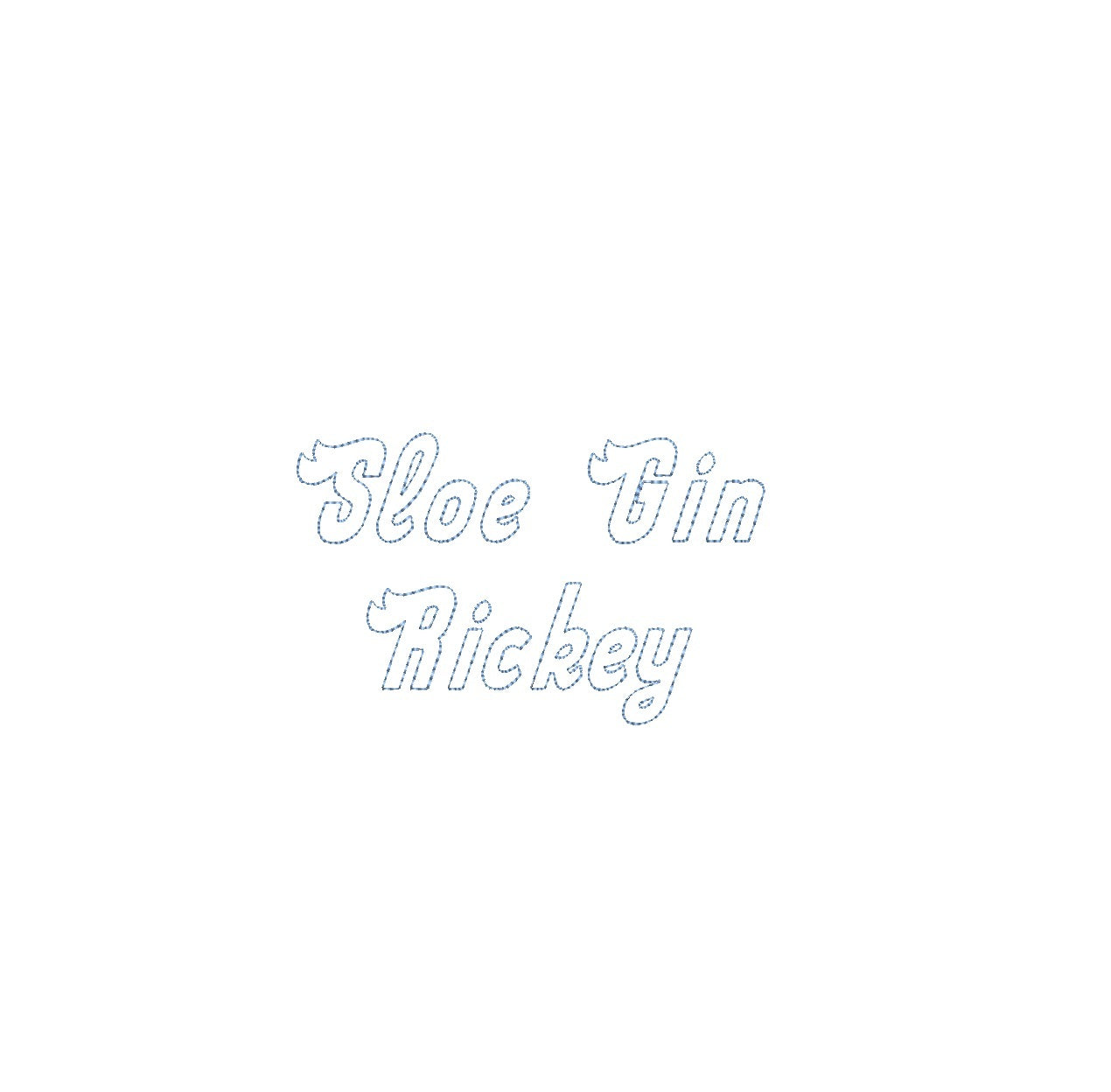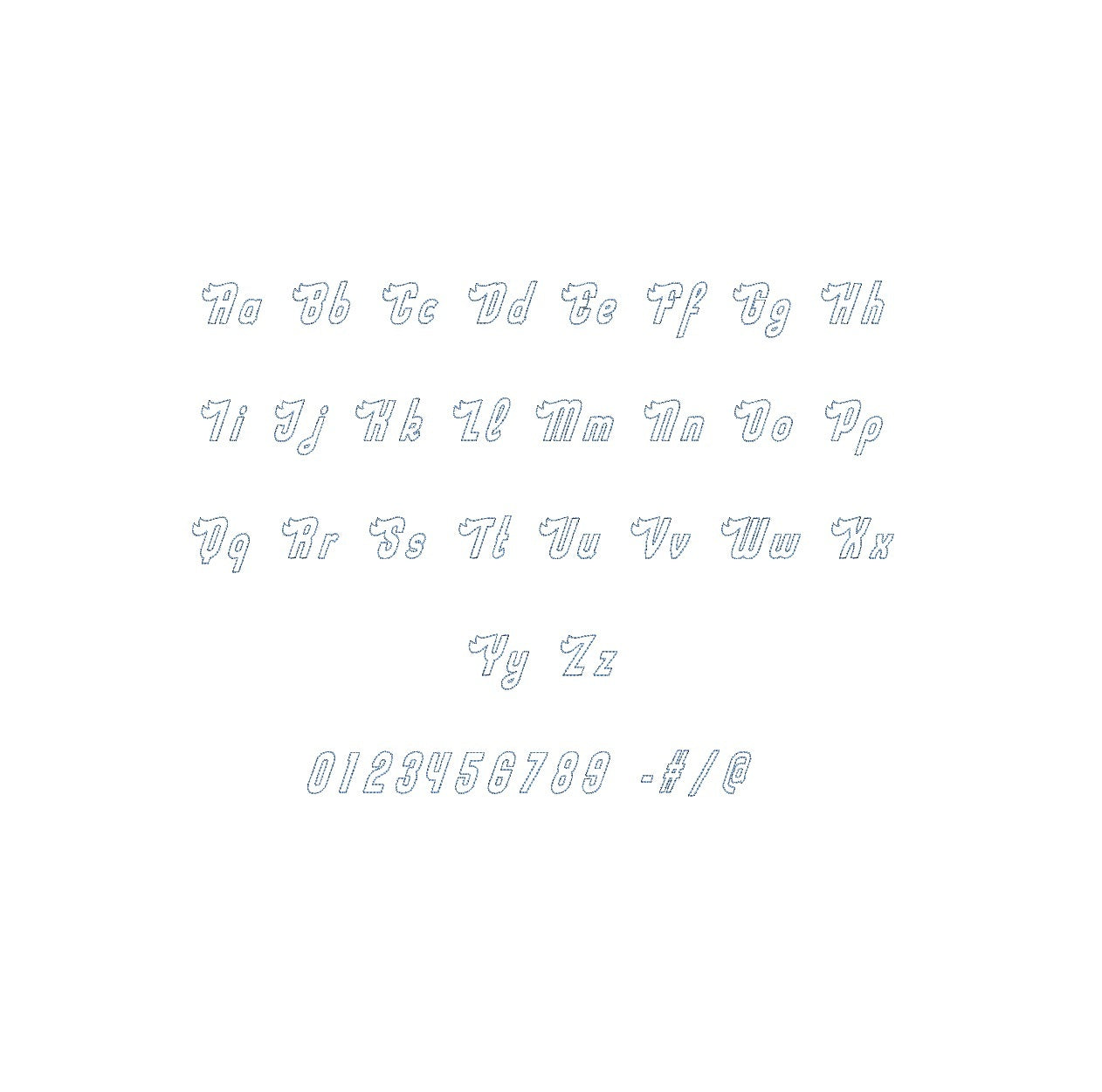
Elevate your embroidery projects with the Sloe Gin Rickey Bean Outline ESA font, compatible with Wilcom Studio e4.5.6 and Hatch 3 versions and up. This font effortlessly combines vintage charm and precision, infusing your designs with a unique aesthetic perfect for retro monograms and embellishments. Experience seamless compatibility for exceptional results and unleash a new level of stitching finesse. Transform your creations into embroidery masterpieces that exude nostalgia and creativity. Elevate your projects with the Sloe Gin Rickey Bean Outline ESA font and make your embroidery truly classic and captivating.